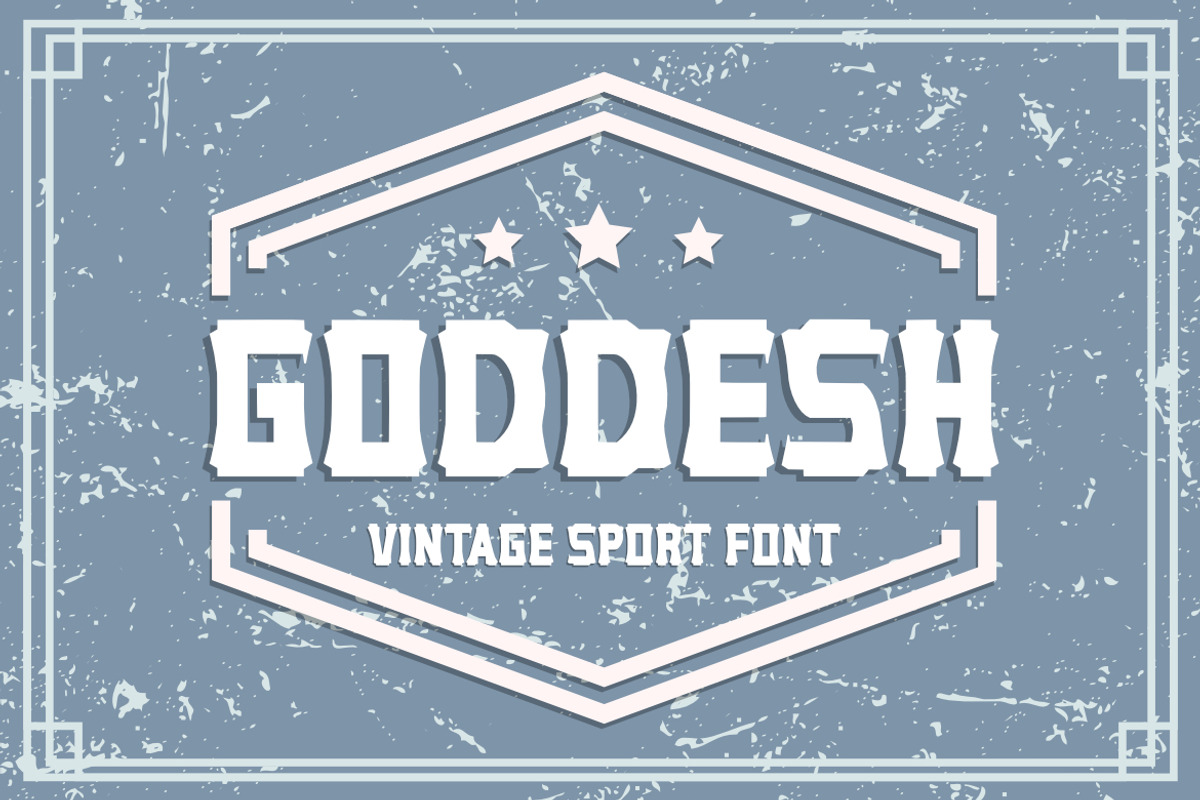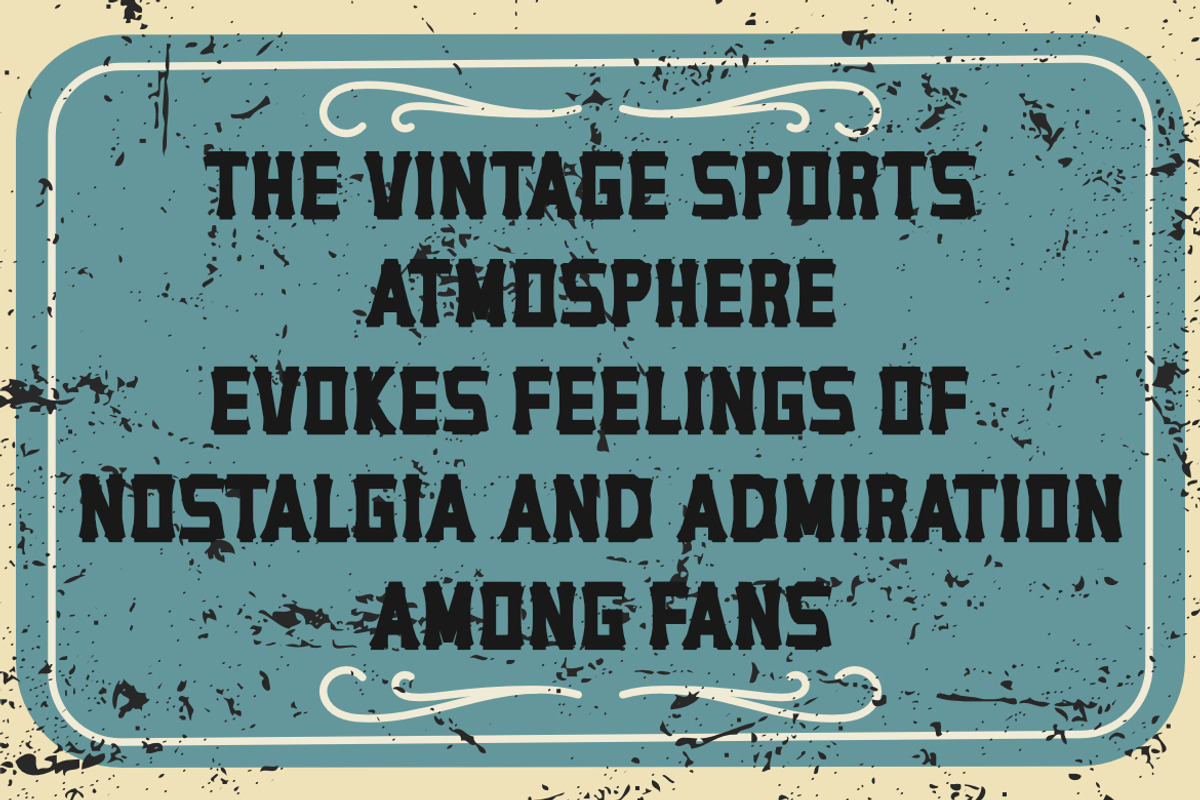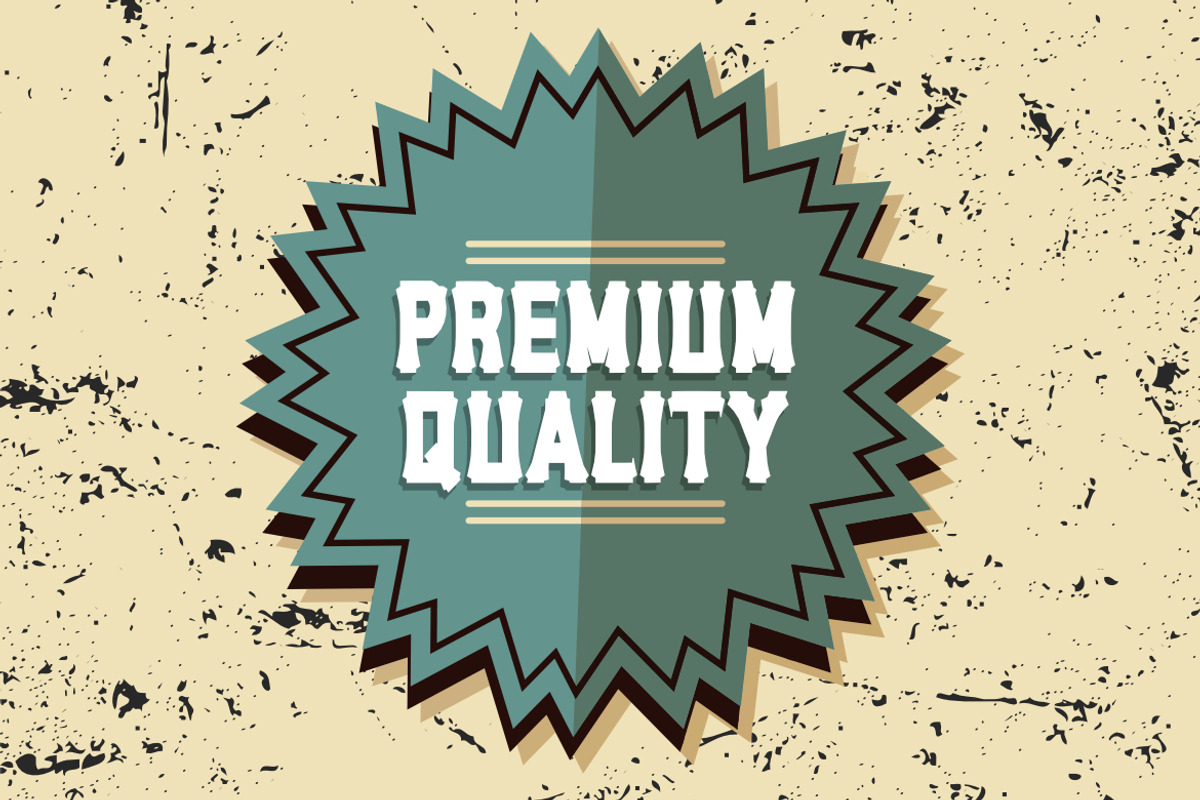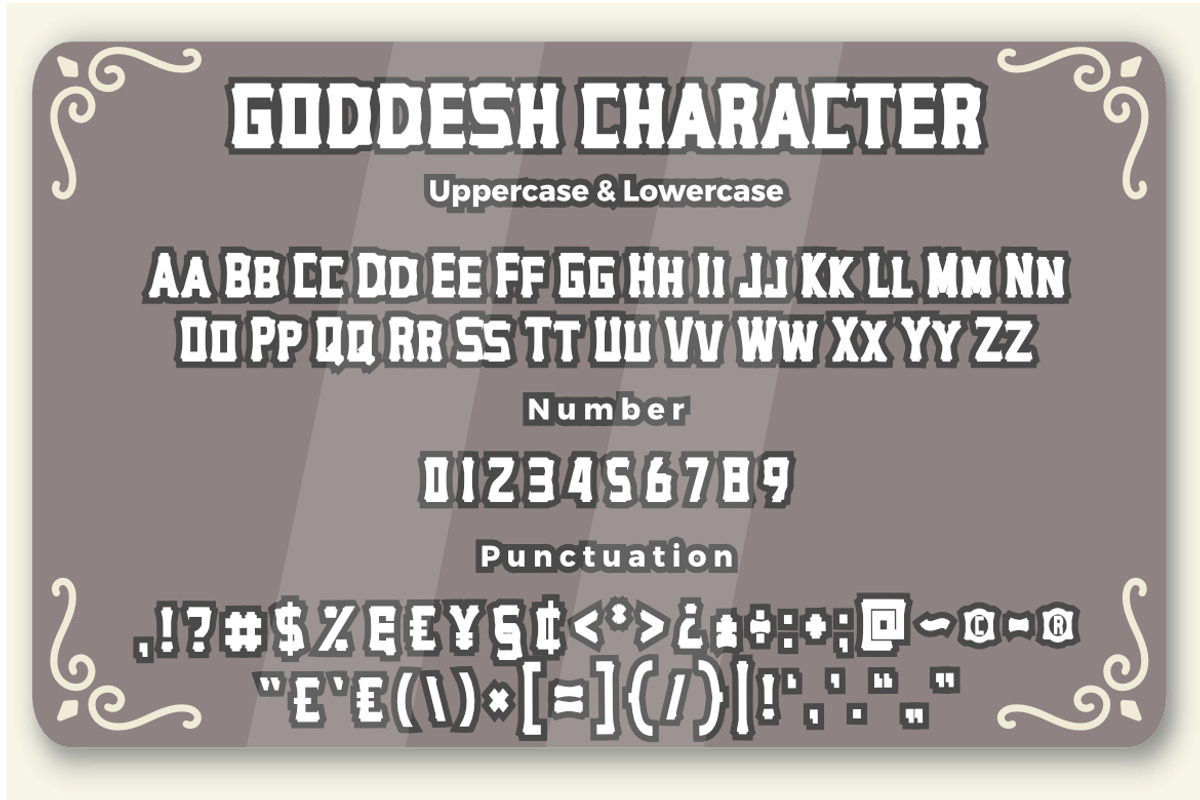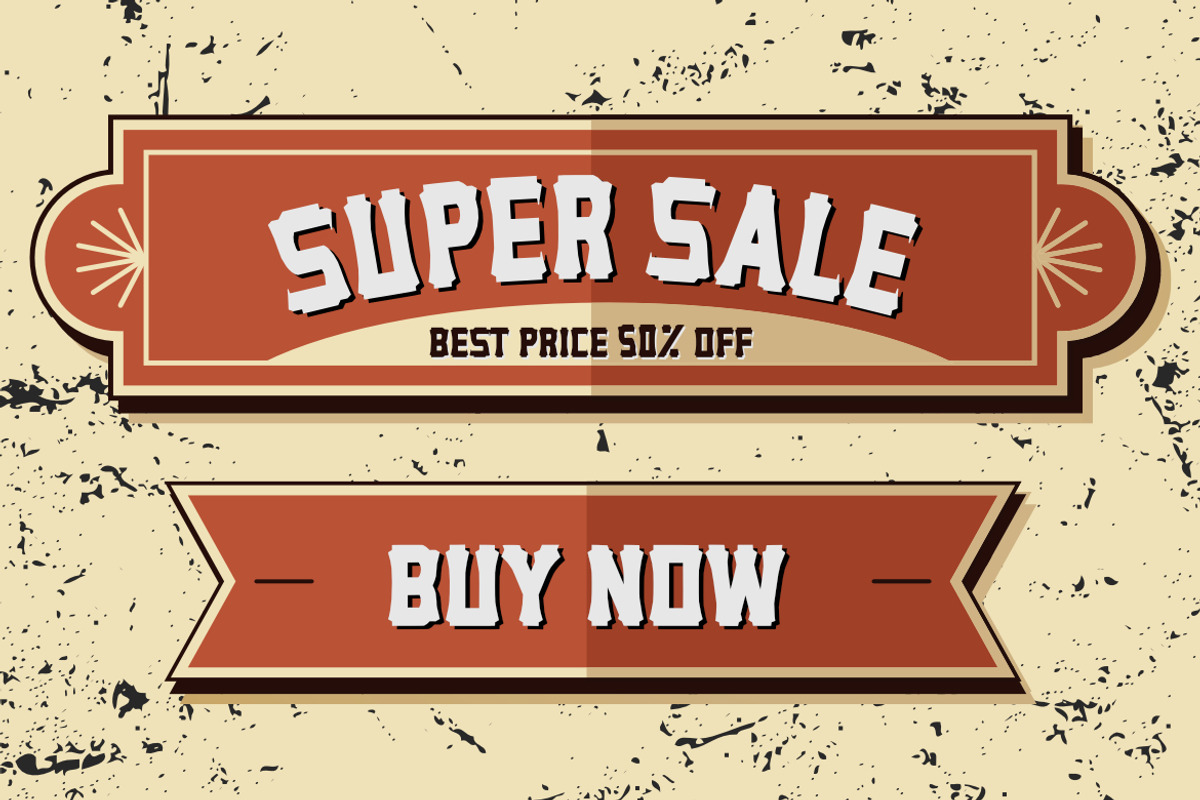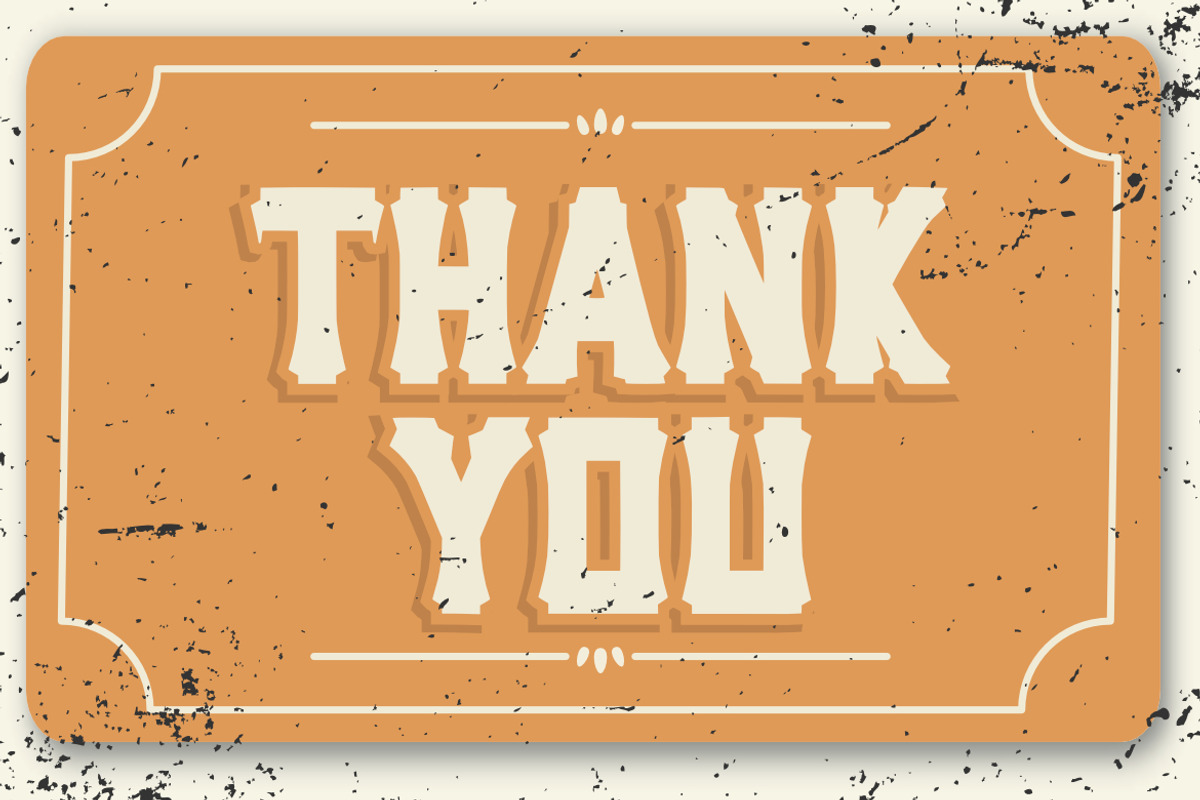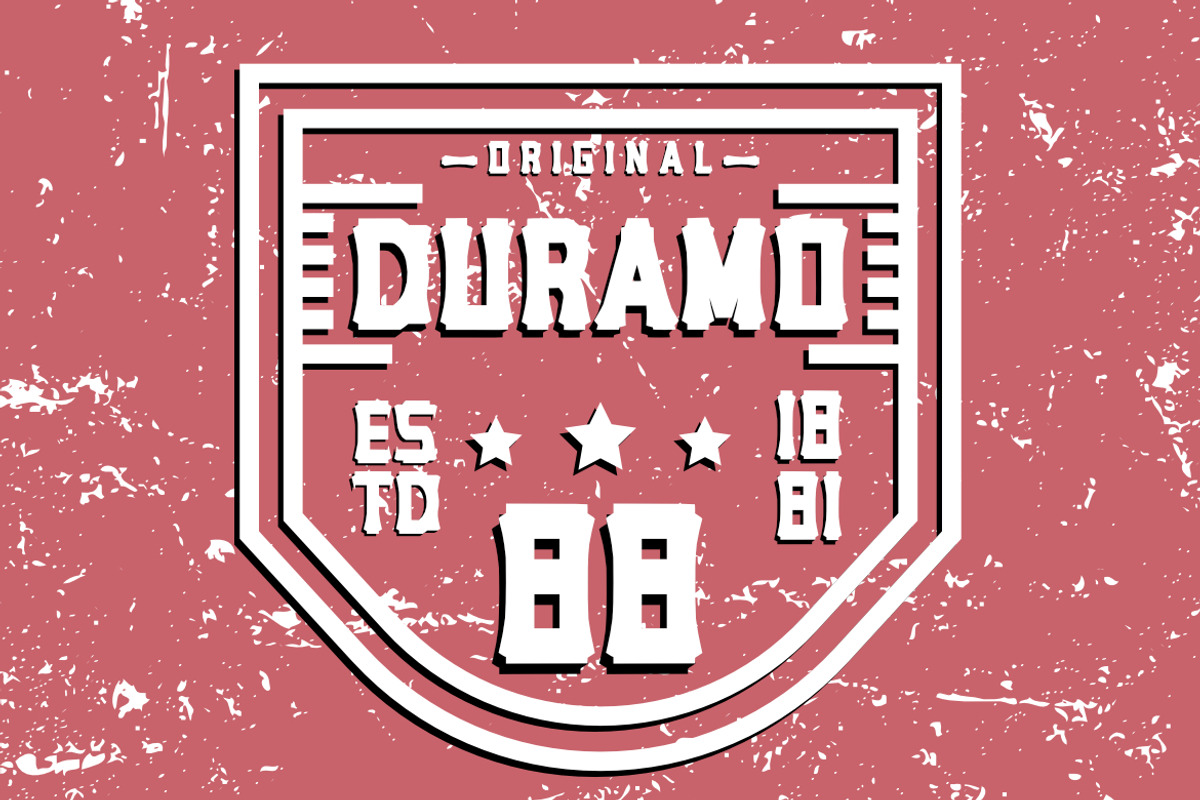
Goddesh Vintage Sport Font
Goddesh Vintage Sport Font, This font is made with a high premium quality level which you can use as flyers, quotes, posters, banners, packaging, merchandise, logotypes and much more.